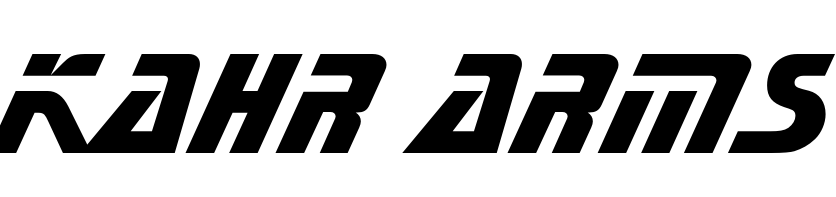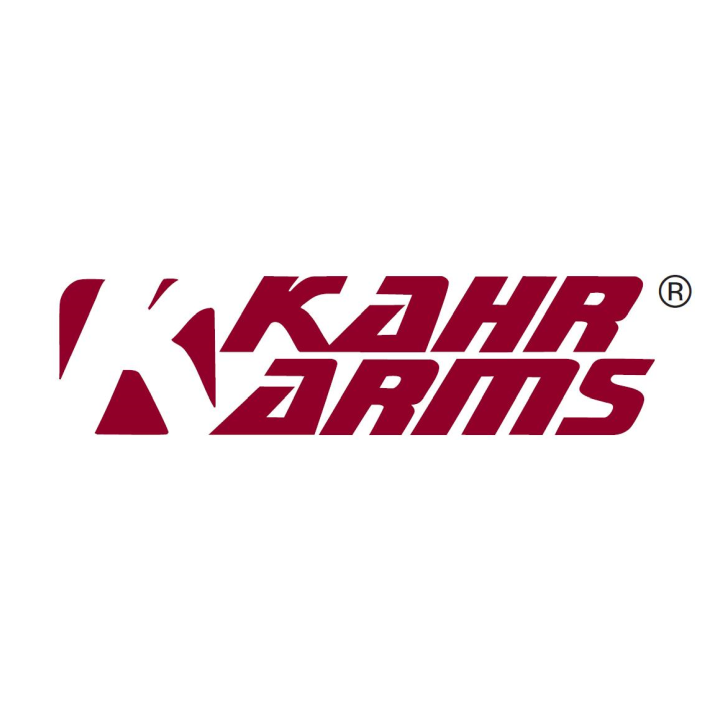
Kahr Arms Logo Font
Fonts in UseKahr Arms is an American firearms manufacturer known for producing compact and concealed-carry handguns. They are headquartered in Pennsylvania.
Kahr Arms' logo employs Sonic, a futuristic all-caps typeface designed by Bitstream. Further information on this font can be accessed here.